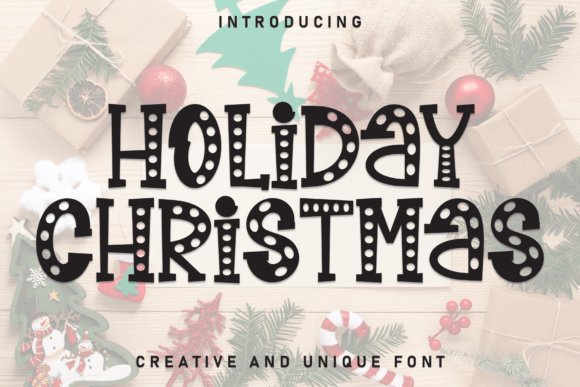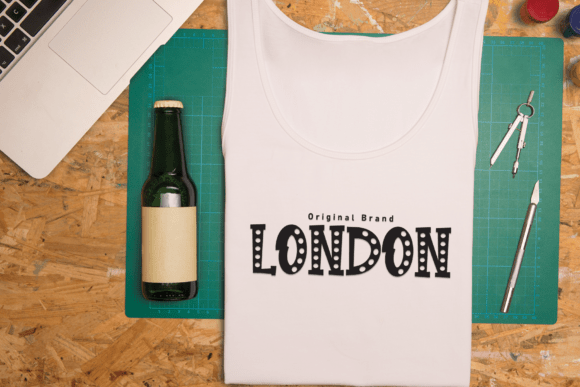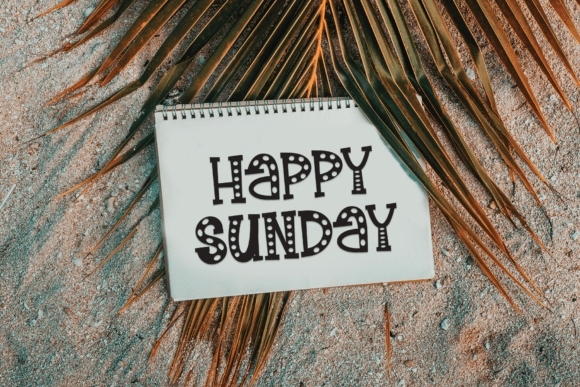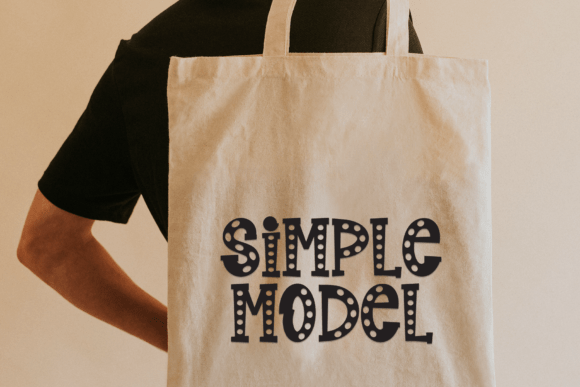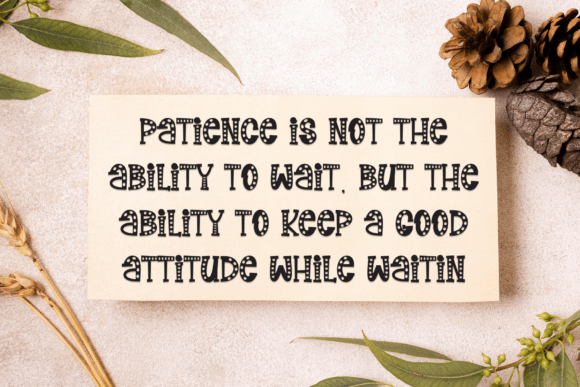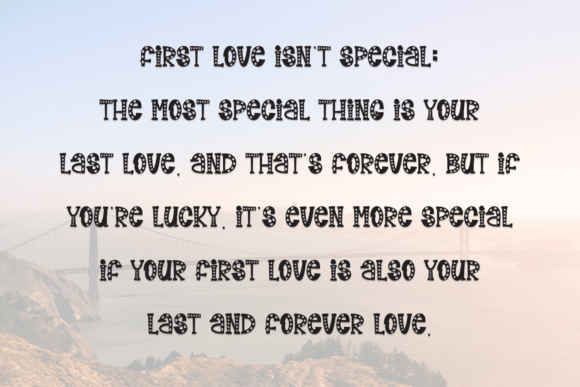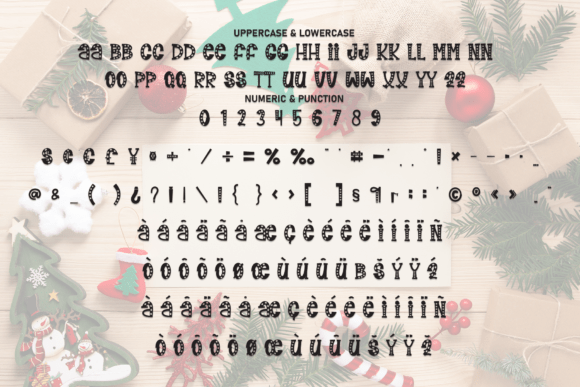
Discover the Magic of Holiday Christmas Fonts: Where Creativity Meets Joy
Have you ever sat down at your desk, surrounded by blank papers and empty canvases, and suddenly felt the urge to create something truly special? Maybe it was a holiday card for a loved one, or a wedding invitation that captured the essence of your special day. Whatever it was, you knew exactly what you wanted – a font that embodied the spirit of fun and whimsy, a font that would transport your recipient to a world of wonder and delight.
That’s where the Holiday Christmas Font comes in – a handmade typographic treasure that exudes a unique, bewitching quality. Designed to add a playful touch to your projects, this font is perfect for designers looking to infuse their designs with a dash of happiness and joy. With its spirited twist, the Holiday Christmas Font is the perfect tool for bringing your creative visions to life.
Holiday Christmas Font Key Features
- Size: 250 glyphs, including uppercase and lowercase letters, numbers, punctuation, and holiday-themed symbols.
- Unique Characteristics: Features a festive and playful design, perfect for holiday-themed projects, including Christmas, Hanukkah, and New Year’s Eve.
Holiday Christmas Font Review
Overall, I’d say the Holiday Christmas Font is a decent addition to any holiday-themed project. ✨ It’s festive and fun, with a playful feel that’s perfect for advertisements, social media posts, or even Christmas cards. The font is well-suited for headings and titles, adding a touch of whimsy to any design.
- The font’s bold and italic variations are particularly well-done, adding depth and variety to the overall design.
- The font’s high level of customization allows for easy adjustments to size, color, and spacing, making it a great choice for designers who want a lot of control.
- The font is also highly scalable, making it a great choice for large-scale projects or presentations.
However, there are a few limitations to consider. ⚠️ The font’s consistency can be a bit off, with some letters and characters feeling a bit wonky or uneven. Additionally, the font may not be suitable for all types of projects, particularly those that require a more professional or formal tone.
Overall, I’d recommend the Holiday Christmas Font for designers who are looking for a fun and festive font for holiday-themed projects. While it may not be perfect, it’s a solid choice that’s sure to add some holiday cheer to any design.
The Holiday Christmas Font is ideal for creating festive and holiday-themed designs, such as:
1. Holiday cards and invitations.
2. Social media posts and graphics.
3. Holiday-themed websites and landing pages.
4. Print materials, such as posters and brochures.
Alternatives to Holiday Christmas Font for Designers
Great Vibes is a beautiful, modern script font perfect for adding a touch of elegance and sophistication to your holiday designs. It’s ideal for use on invitation cards, gift tags, and social media graphics.
Compared to Holiday Christmas Font, Great Vibes is more versatile and can be used in a variety of design contexts. While Holiday Christmas Font is more traditional and festive, Great Vibes is more contemporary and sophisticated.
Carolyna Pro is a high-end, luxury font that exudes refinement and style. It’s perfect for use on high-end packaging, invitations, and branding materials. Its elegant script and refined details make it a great alternative to Holiday Christmas Font.